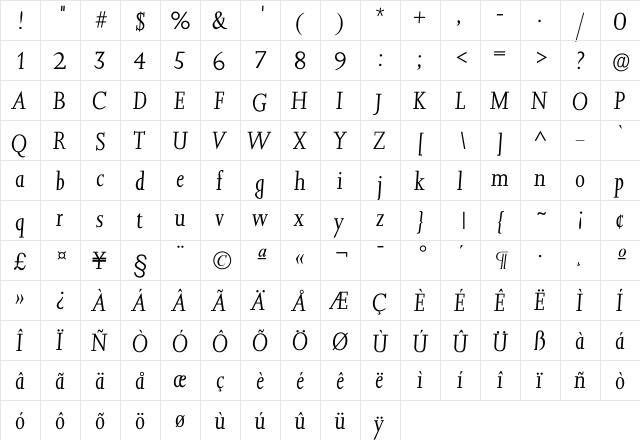
Ijessica Light
Design Context for Ijessica Typeface
Ijessica takes a measured approach to typography — its balanced proportions and neutral character make it a reliable workhorse for both digital and print work. Its slender proportions lend an understated elegance to any composition.